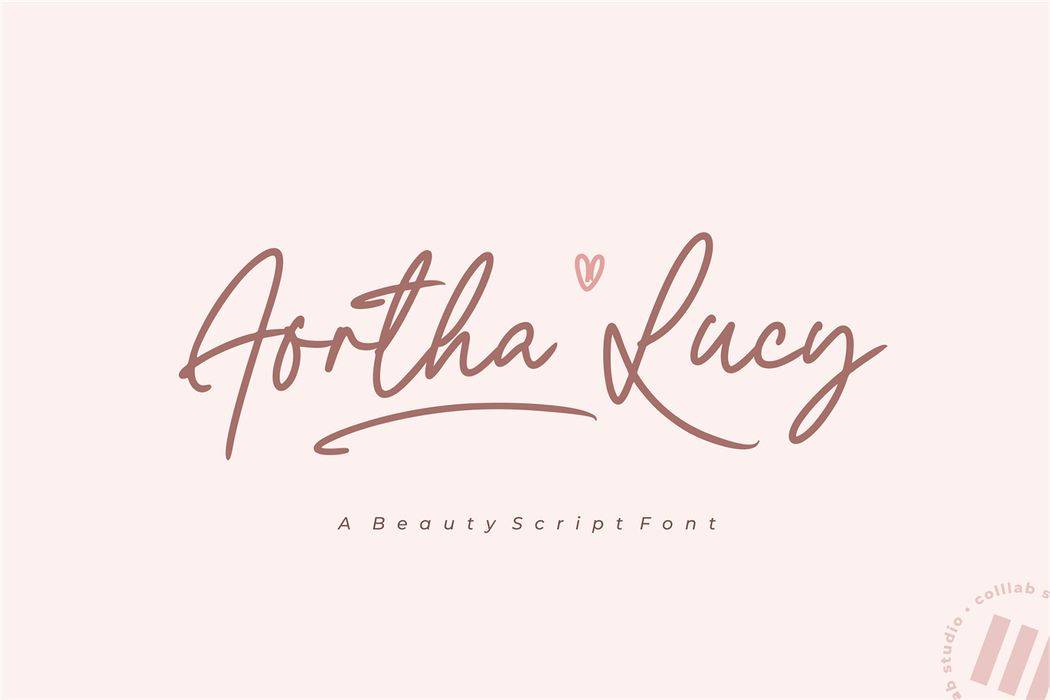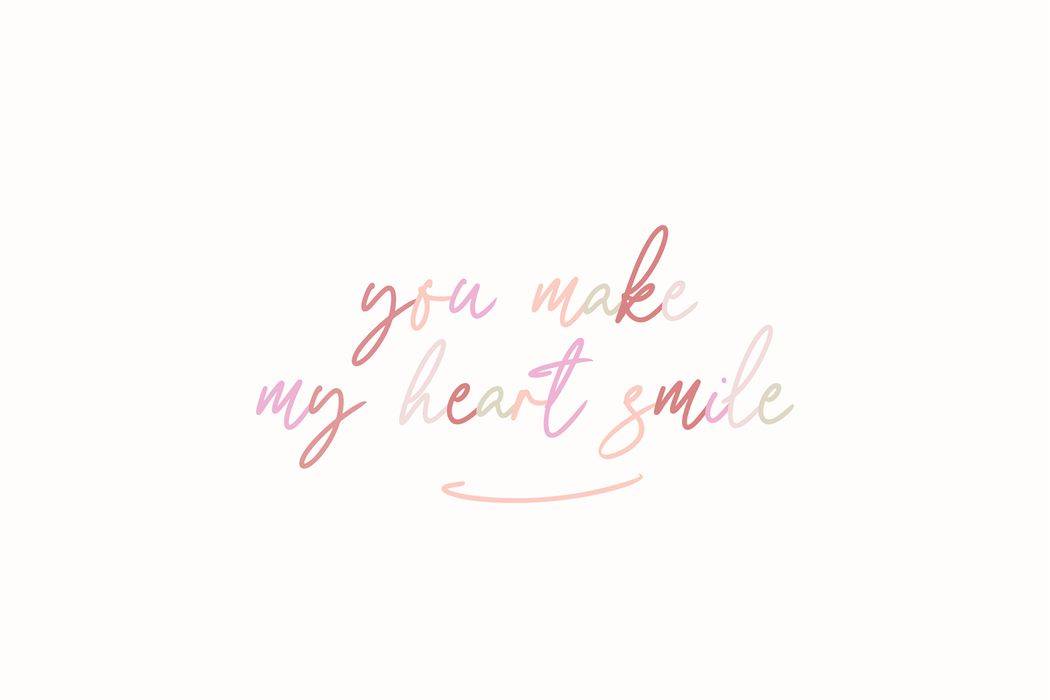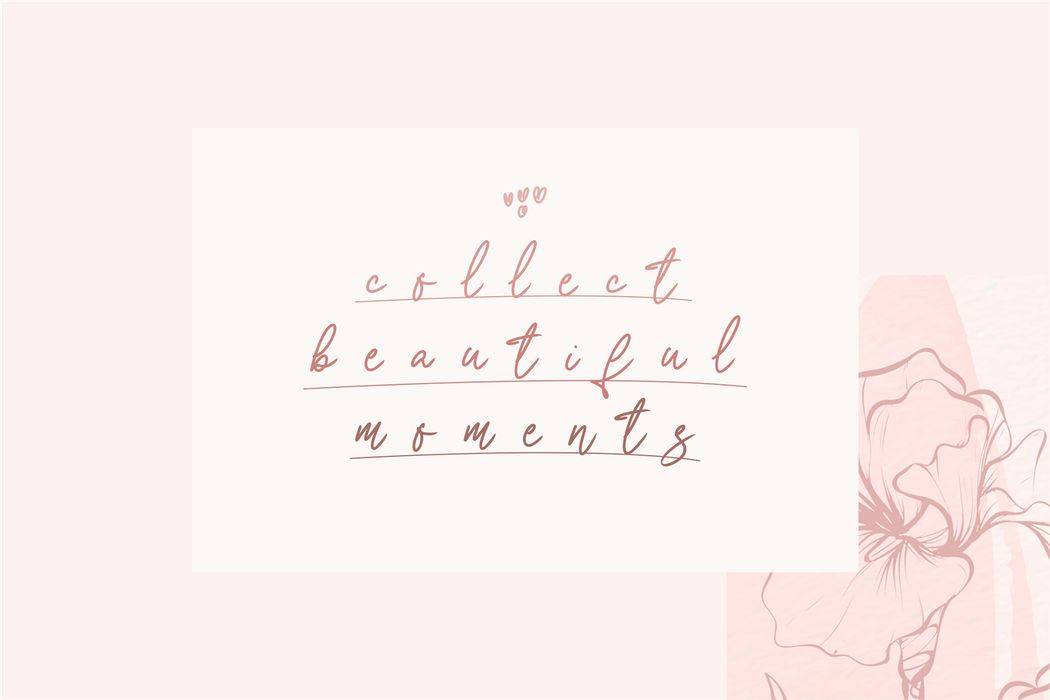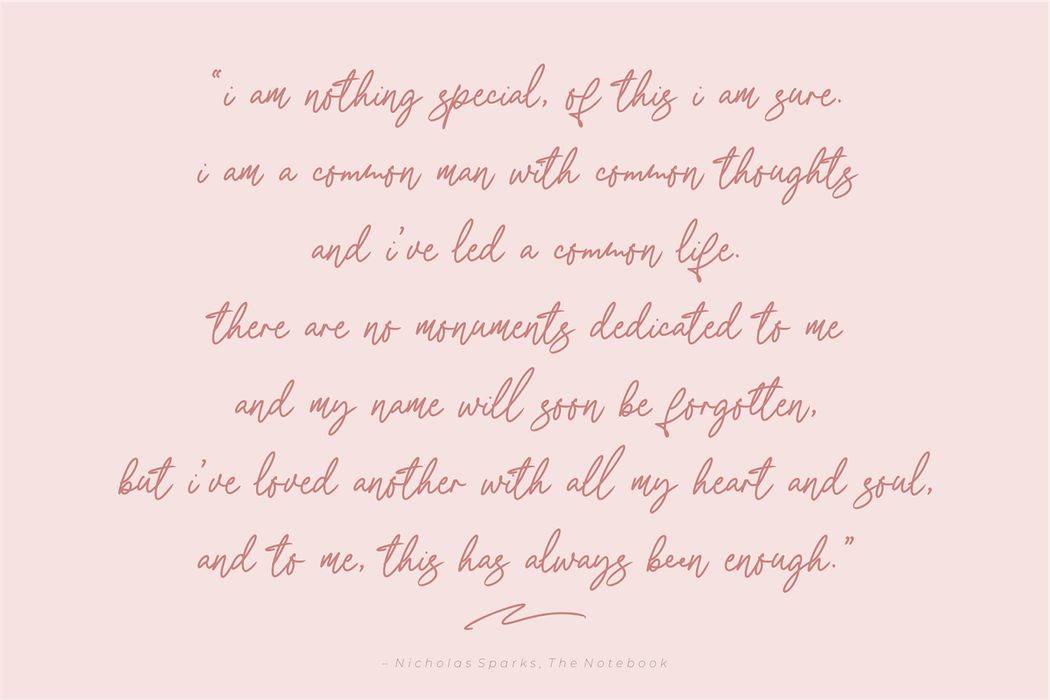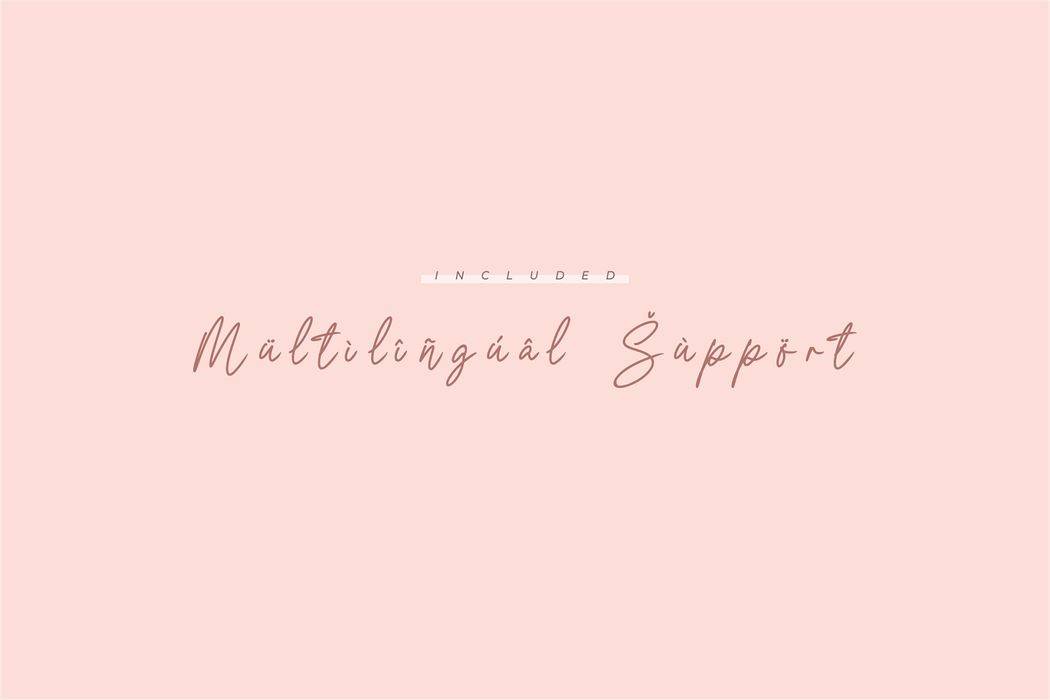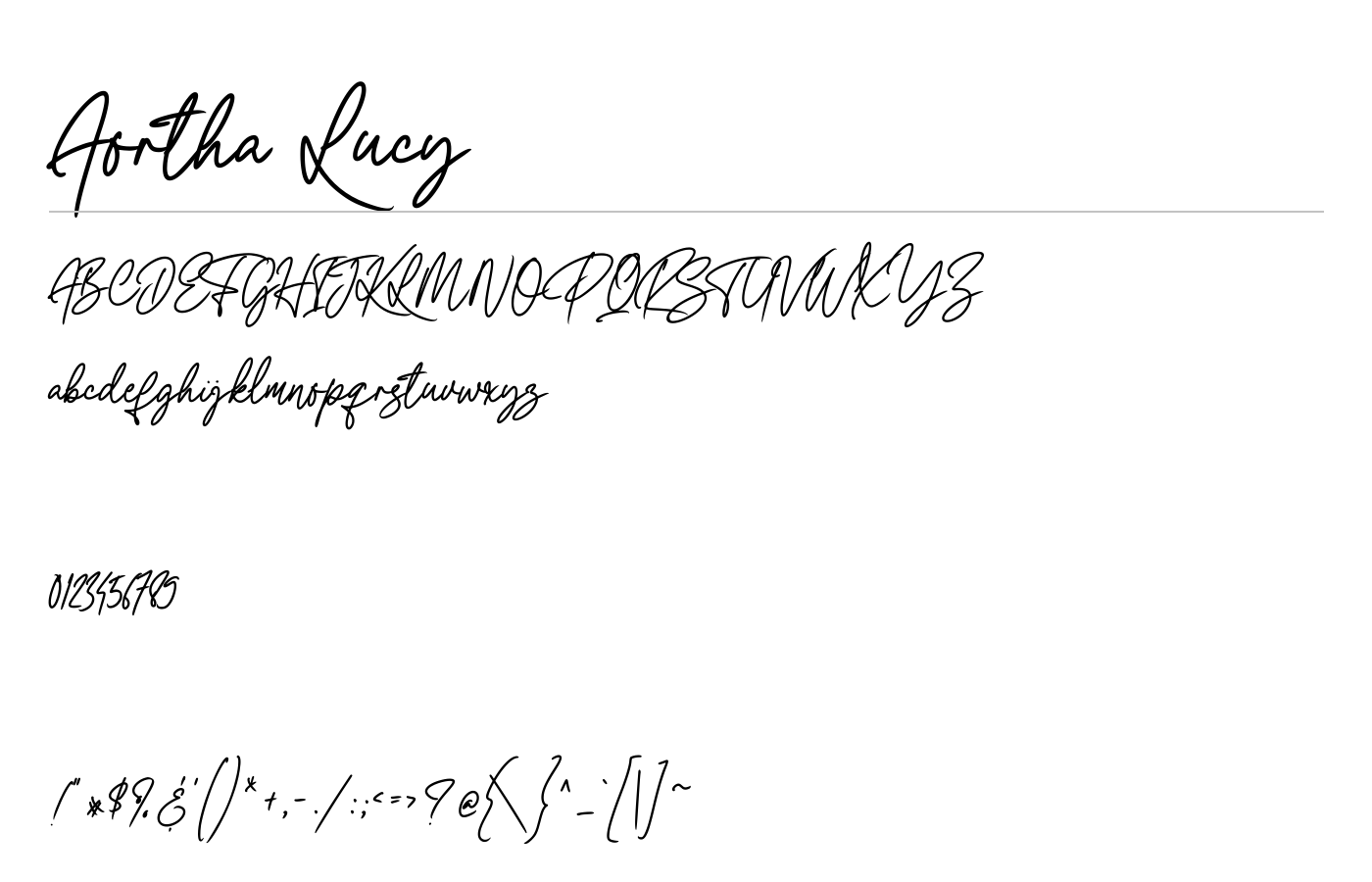
Aortha Lucy is a delicate, elegant script font with a handwritten feel, featuring slender, flowing strokes that create a graceful and personal touch. Its light weight and natural letter connections make it ideal for branding, invitations, and stylish editorial use where a refined yet approachable look is desired. This font works beautifully to convey sophistication with an intimate, artistic flair.
Aortha Lucy Font
About Aortha Lucy Font
| Font family | Aortha Lucy Font |
| Release date | 2020-09-08 |
| Designer | Colllab Studio Team |